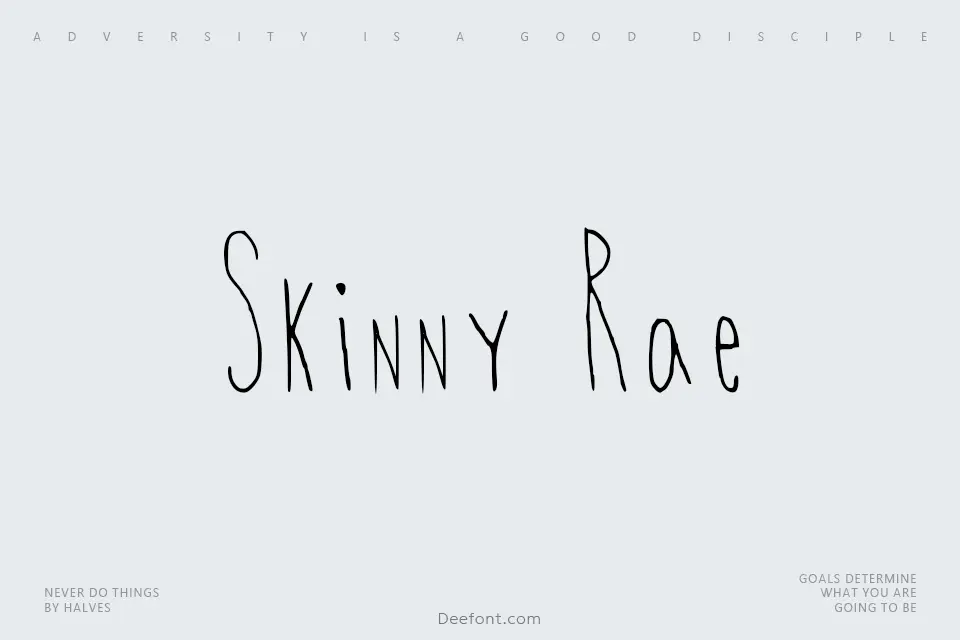
Skinny Rae Font
Skinny Rae is a delicate, thin handwritten typeface that captures authentic hand-drawn charm with its elongated letterforms and minimalist design. Created using Calligraphr technology, this script font features 66 glyphs including both uppercase and lowercase letters, numbers, and punctuation. The elongated strokes and graceful proportions make it ideal for creating eye-catching titles, poster designs, farmhouse-style décor labels, greeting cards, and artistic invitations. Its light weight and elegant aesthetic bring a personal, artisanal touch to any creative project, from social media graphics to craft applications and home décor signage, perfect for designers seeking a refined yet accessible handwritten aesthetic.